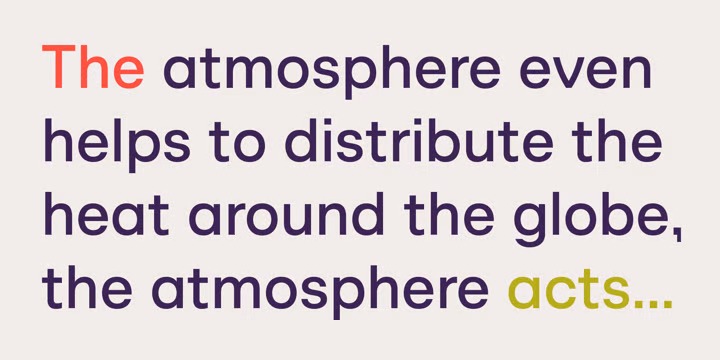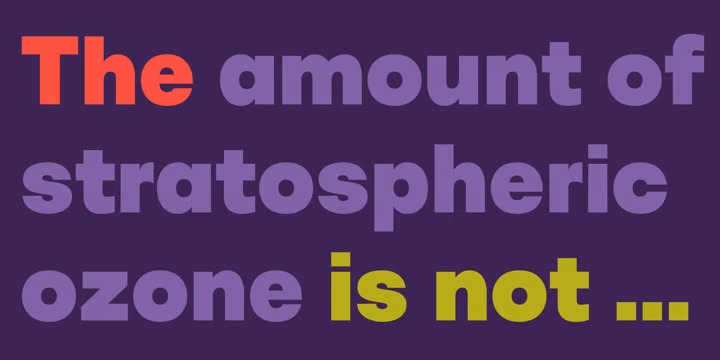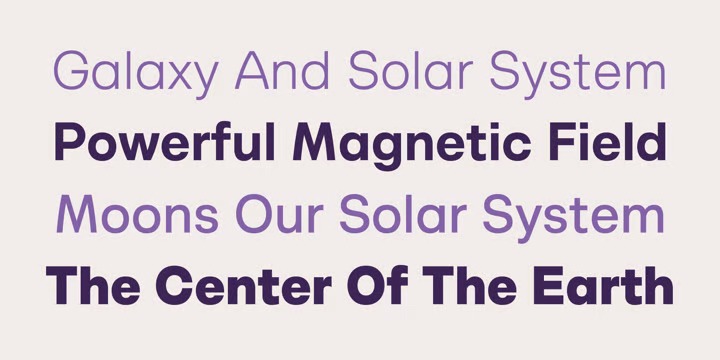
Alexer Sans Serif Font is a mellow sans serif typeface designed by NicolassFonts. It soothes your design and helps to create to balance your visualization. It comes in 12 weights, 6 uprights, and matching italics. Each weight includes alternates (G,I,t) and OpenType features. This family is ideally suited for packaging, headlines, advertising, and corporate identities. Perfectly for web, signage, and editorial design.